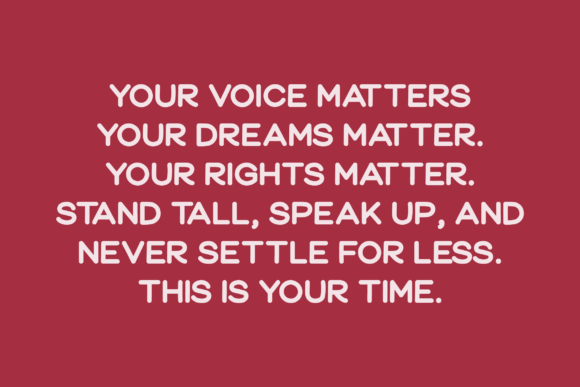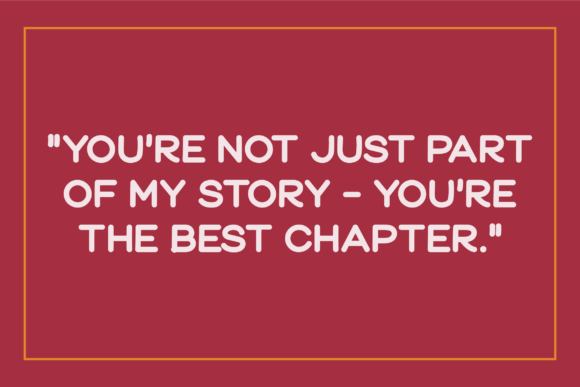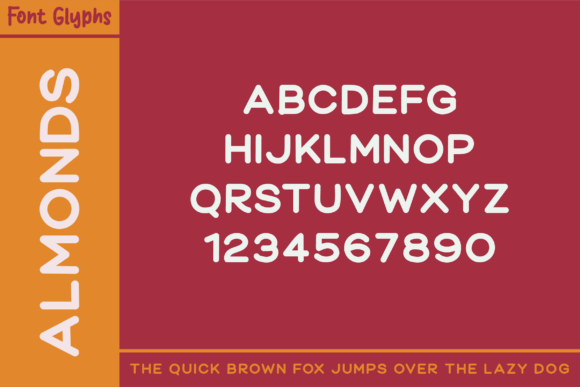
Introducing Almonds Font: The Perfect Blend of Bold and Charming
In the world of typography, finding the right font can make all the difference in creating a lasting impression. For designers and crafters looking to add a touch of personality to their work, Almonds Font is an excellent choice. This handwritten font combines a strong, bold presence with a charming, personal touch, making it ideal for a wide range of applications.
The Unique Characteristics of Almonds Font
Almonds Font stands out from the crowd with its unique blend of boldness and charm. Its handwritten style gives it a personal and approachable feel, while its bold presence ensures that it commands attention. The font’s distinctive characteristics make it perfect for designers and crafters looking to add warmth and authenticity to their work.
One of the key benefits of Almonds Font is its versatility. It can be used in a variety of design applications, including:
- Branding: Create a lasting impression with your brand’s identity by using Almonds Font in your logo, business cards, and other marketing materials.
- Packaging: Add a touch of personality to your product packaging with Almonds Font, making it stand out on store shelves.
- Social Media: Use Almonds Font to create engaging social media graphics, posts, and stories that reflect your brand’s personality.
- Print: From brochures and flyers to posters and banners, Almonds Font is perfect for a wide range of print materials.
Achieving a Professional yet Approachable Aesthetic
Almonds Font is designed to help you achieve a professional yet approachable aesthetic in your designs. Its bold presence ensures that your message is conveyed with confidence, while its charming and personal touch adds a layer of warmth and authenticity. This makes it perfect for businesses and individuals looking to create a strong brand identity that resonates with their audience.
Why Choose Almonds Font?
With so many fonts to choose from, why should you choose Almonds Font? Here are just a few reasons:
- Unique Style: Almonds Font has a unique style that sets it apart from other fonts, ensuring that your designs stand out.
- Easy to Read: Despite its bold presence, Almonds Font is easy to read, making it perfect for body text and headlines.
- Highly Versatile: As mentioned earlier, Almonds Font can be used in a wide range of design applications.
Tips for Using Almonds Font Effectively
To get the most out of Almonds Font, here are a few tips:
- Use it as a Headline Font: Almonds Font is perfect for headlines and titles, where its bold presence can make a lasting impression.
- Pair it with Other Fonts: Experiment with pairing Almonds Font with other fonts to create a unique and visually appealing design.
- Adjust the Size and Color: Don’t be afraid to experiment with different sizes and colors to make Almonds Font truly shine in your designs.
In conclusion, Almonds Font is an excellent choice for designers and crafters looking to add a touch of personality to their work. Its unique blend of boldness and charm makes it perfect for a wide range of design applications, from branding and packaging to social media and print. With its highly versatile nature and professional support, Almonds Font is sure to become a staple in your design toolkit.